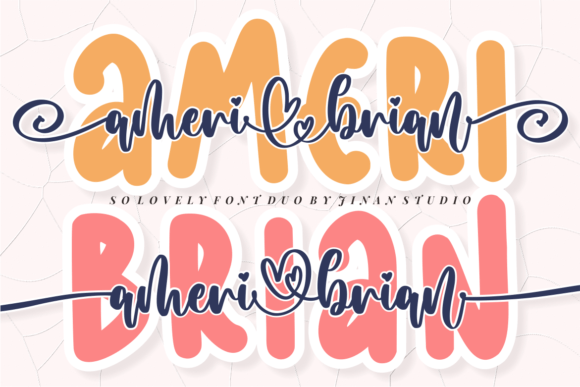
Discover the Whimsical Charm of Ameri Brian Font
Have you ever stared at a blank page, trying to come up with the perfect phrase to express your feelings to a loved one? We’ve all been there, searching for the perfect words to convey our emotions. But what if the right words weren’t enough? What if you needed a font that could speak for you, adding a touch of elegance and romance to your message?
Enter Ameri Brian Font, a beautiful and versatile duo font that combines the softness of a script with the sophistication of a sans serif. With its delicate lines and gentle curves, this font is perfect for adding a whimsical touch to your designs, from greeting cards to headlines. Whether you’re a seasoned designer or a creative enthusiast, Ameri Brian Font is a valuable addition to your toolkit, guaranteed to elevate your projects and leave a lasting impression.
Ameri Brian Font Key Features
- Unique Characteristics: Ameri Brian Font features a unique, modern script design with a mix of cursive and handwritten styles, making it perfect for creative projects and designs that require a personal touch.
- Font Style: Ameri Brian Font is available in 2 different font styles: Regular and Bold, allowing for a wide range of design possibilities.
Ameri Brian Font Review
I’ve had the chance to work with Ameri Brian Font, and I must say, it’s a decent addition to any designer’s toolkit. Here are some things that work well: ✨
- The font is quite versatile and can be used in a variety of projects, from headings to body text.
- The font has a unique and quirky feel to it, which can add some personality to your designs.
- The font is relatively easy to read, even at smaller font sizes.
- The font may not be the best choice for formal or professional projects, as it can come across as too playful or informal.
- The font may not be suitable for projects that require a lot of bold or italic text, as the font’s quirks can make it difficult to read in these formats.
- The font is not as polished or refined as some other fonts on the market.
Overall, I’d say that Ameri Brian Font is a solid choice for designers who want to add some personality to their projects. While it may not be the best choice for every project, it’s definitely worth considering for the right kind of design.
Ameri Brian Font Practical Application Guide
Use Ameri Brian Font for titles, headings, and body text to create a cohesive and modern design.
Experiment with different font sizes and styles to add visual interest and emphasis.
Combine Ameri Brian Font with other fonts to create a unique and visually appealing design.